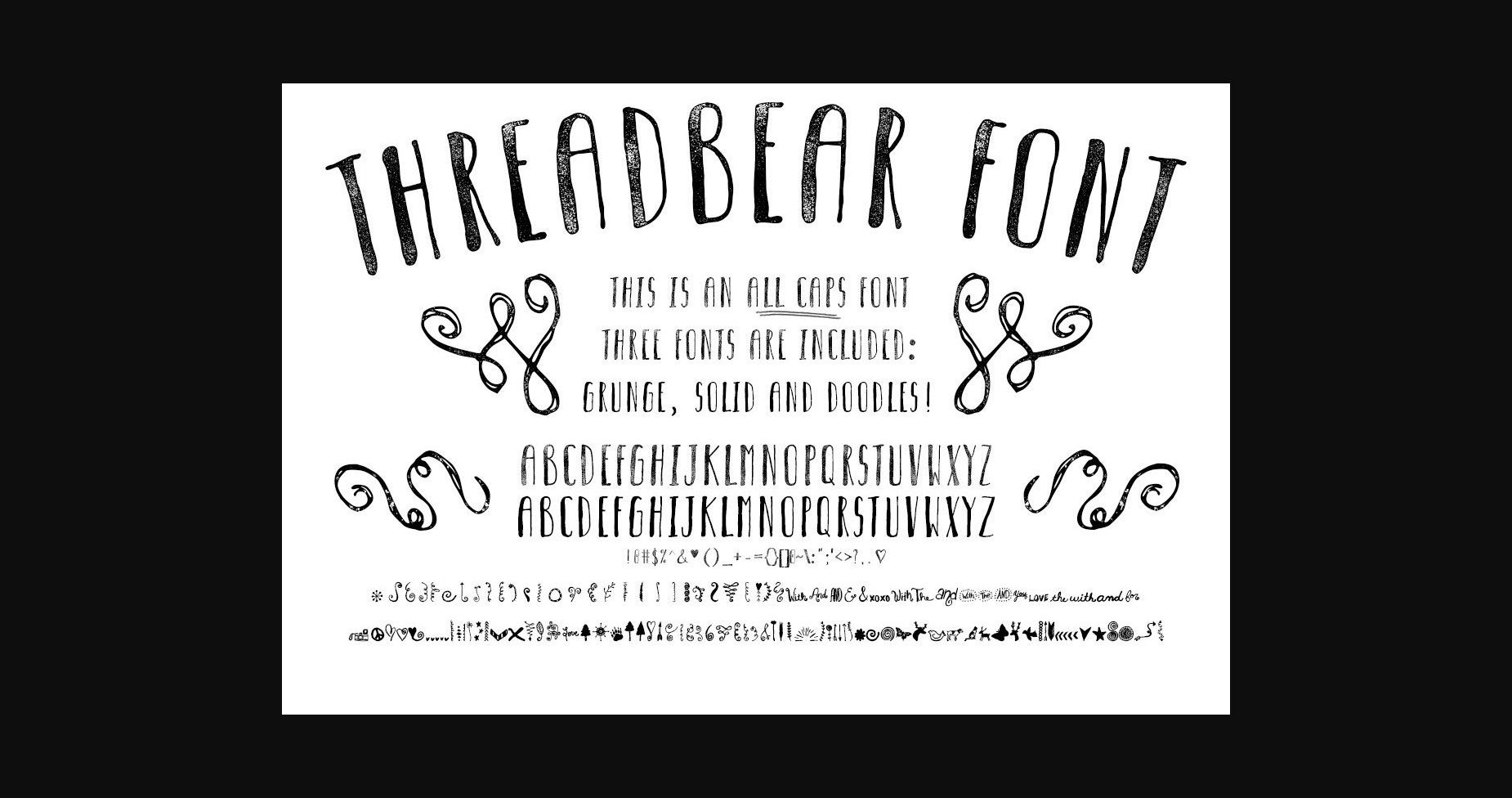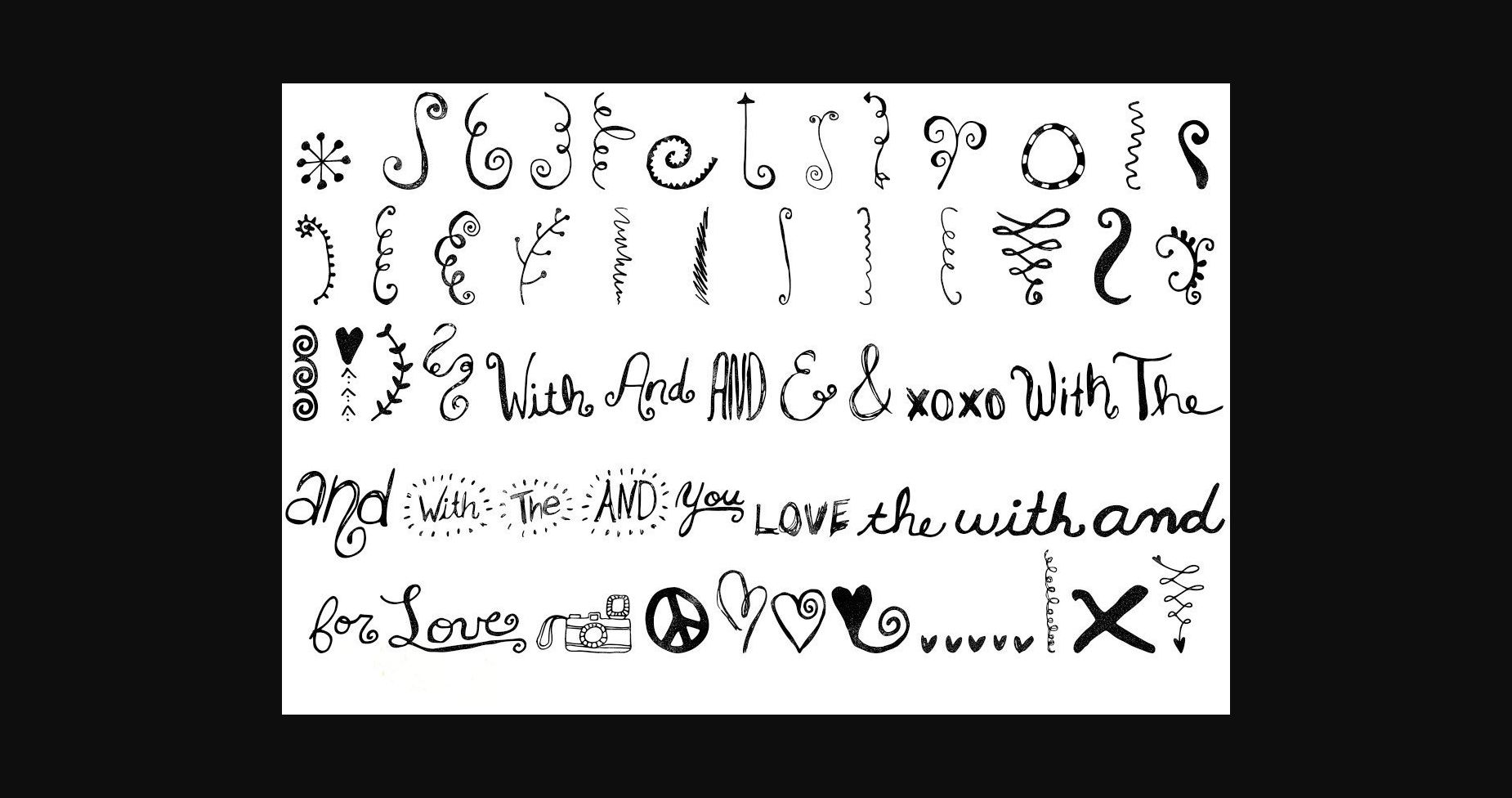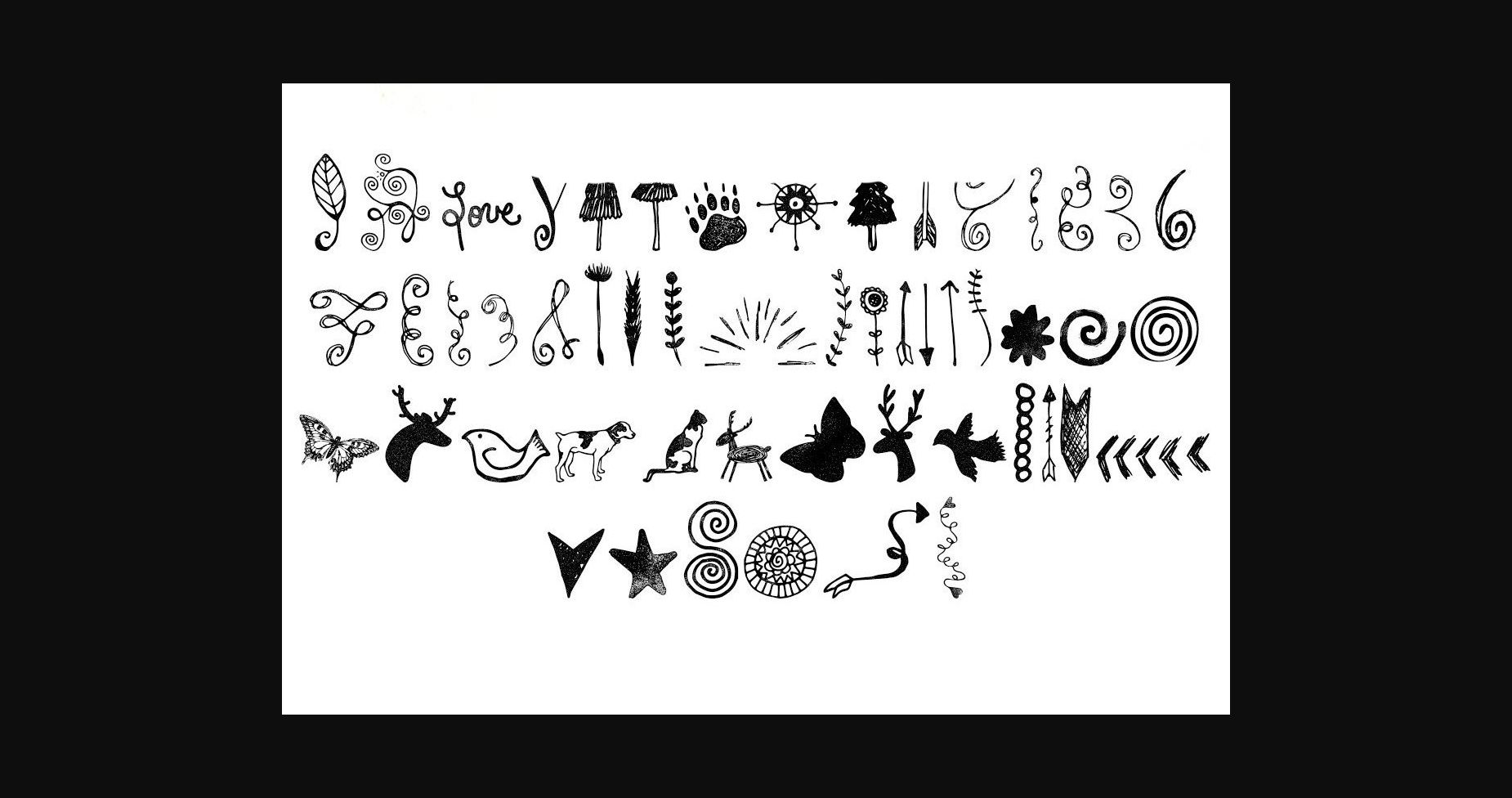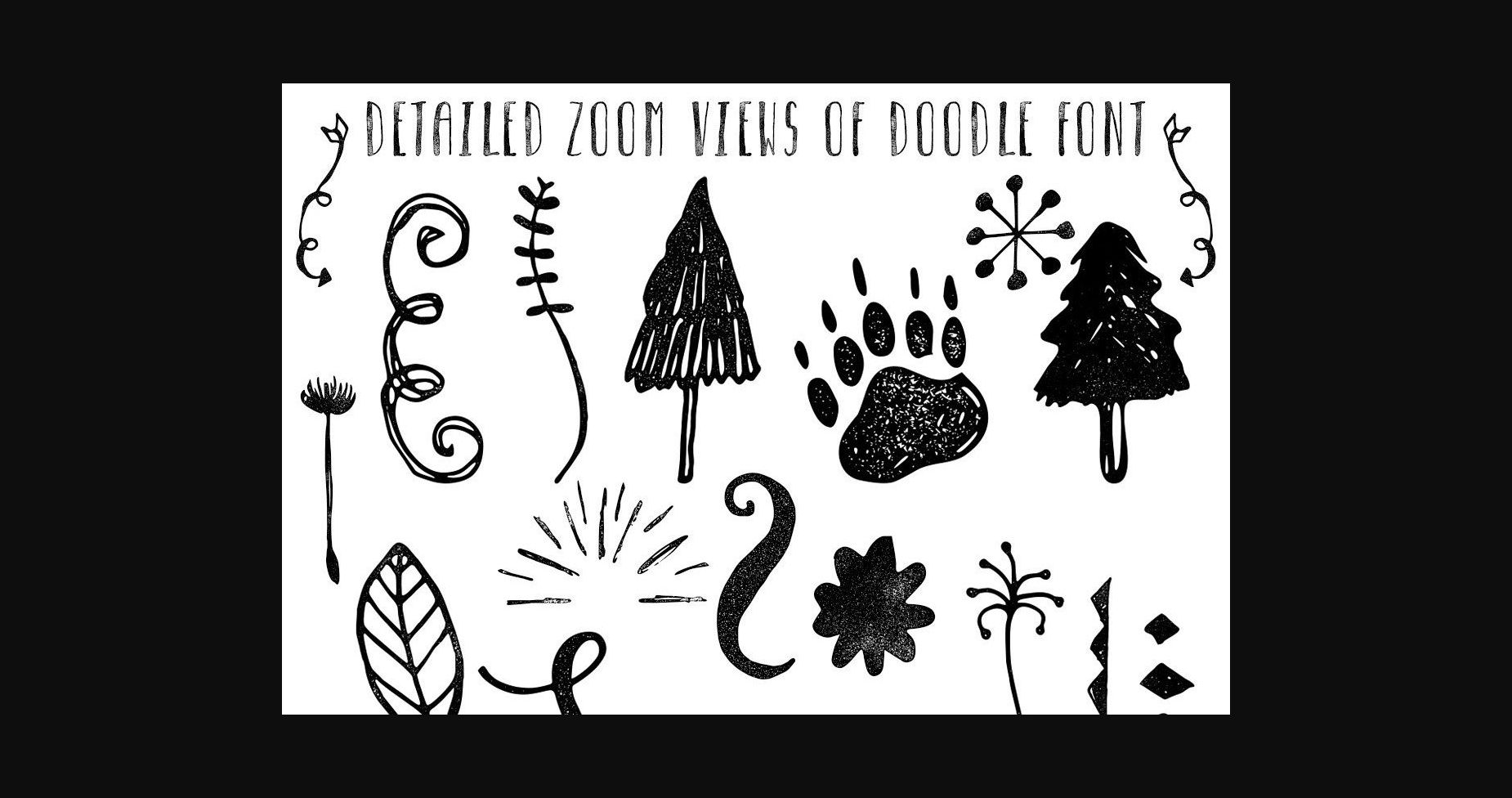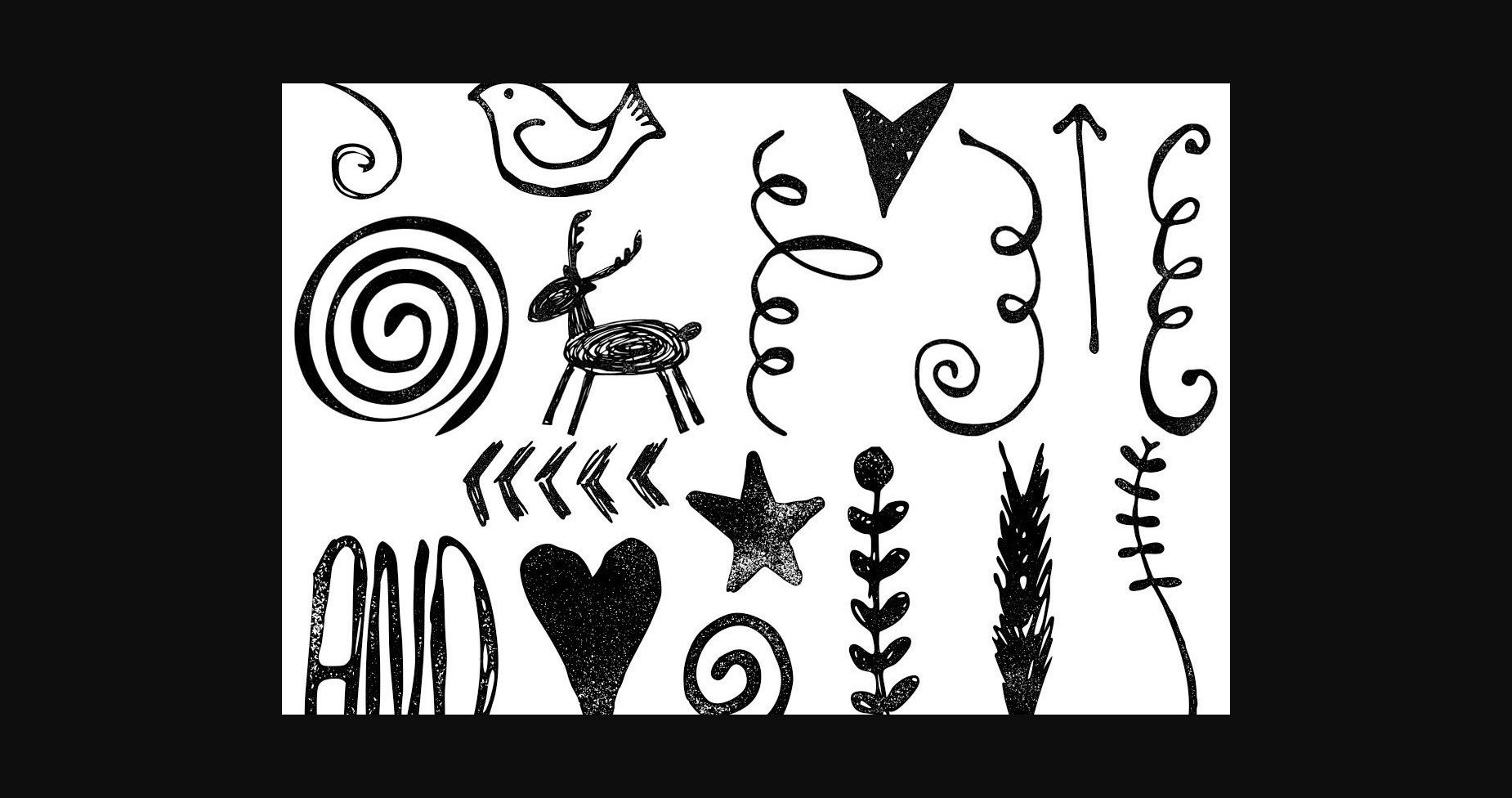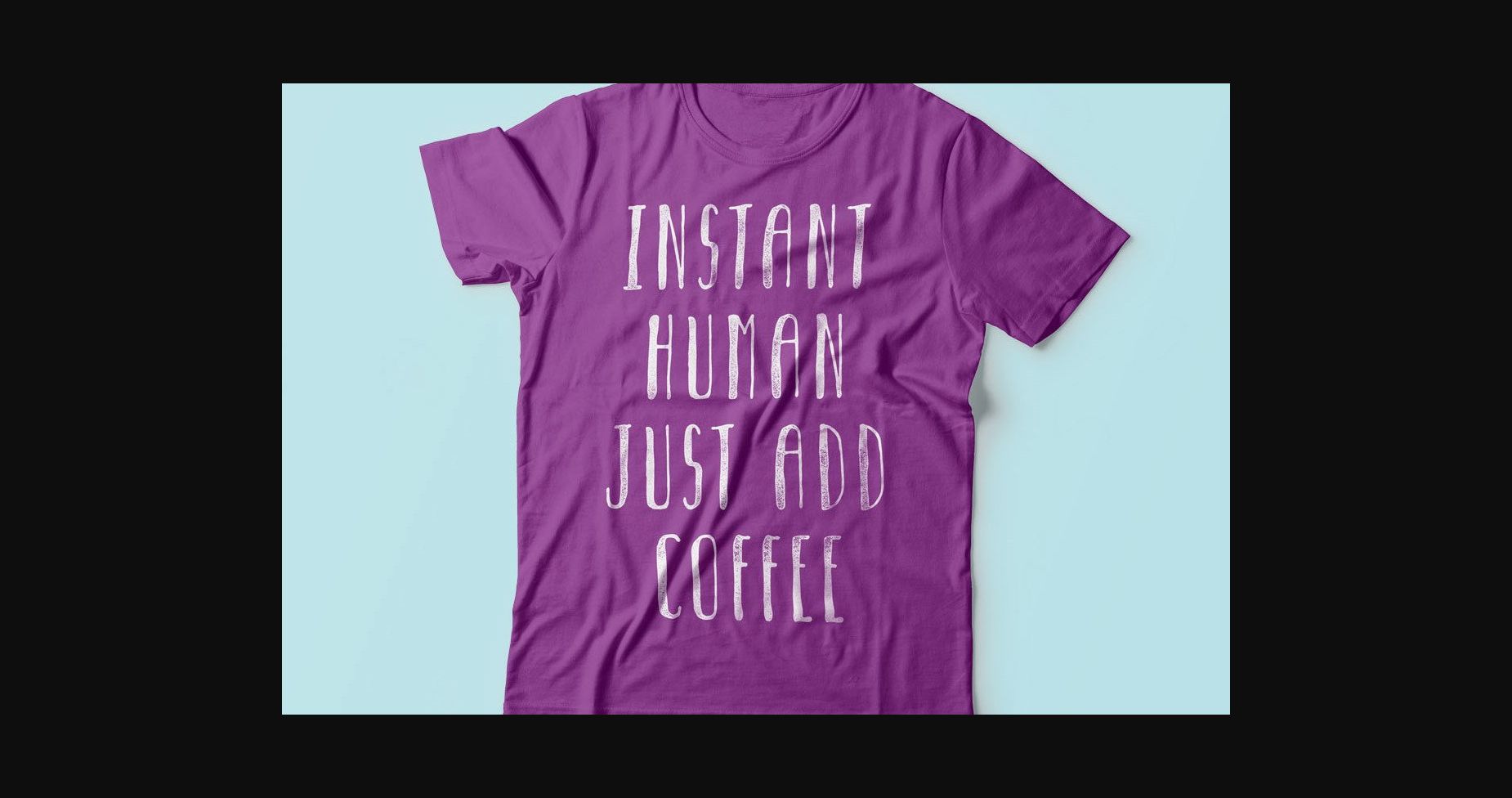
Threadbear Font
About Threadbear Font
Threadbear is a fun and whimsical all-caps sans serif font. Whether you’re using it for crafts, digital design, presentations, or making greeting cards, this font has the potential to become your favorite go-to font, no matter the occasion!